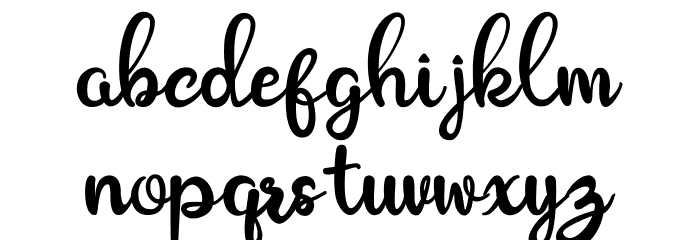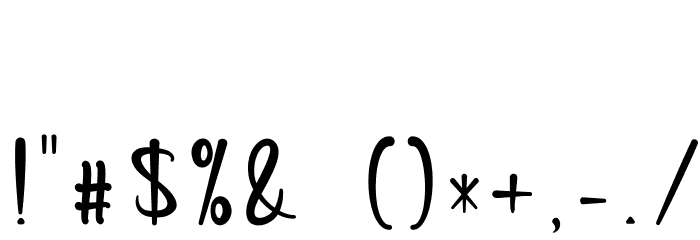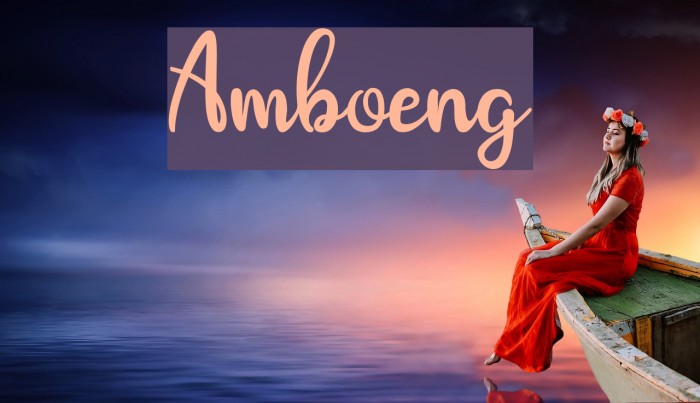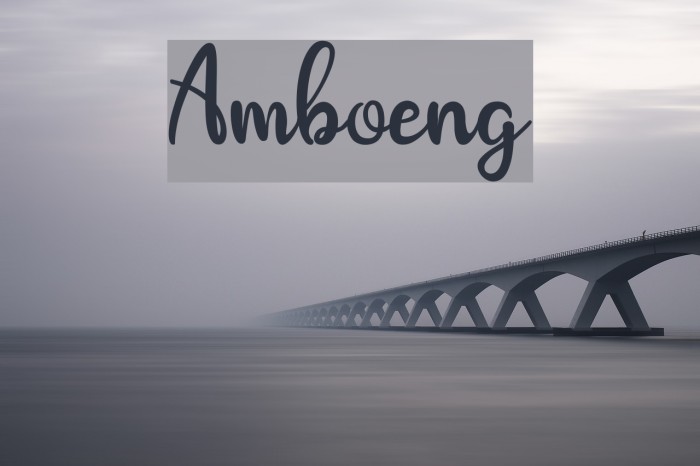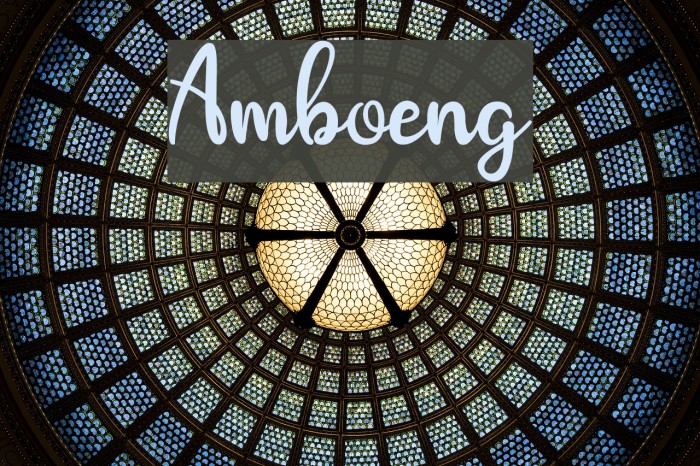
Amboeng Font
This font features a playful and whimsical script style with a handwritten appearance. The letters are characterized by their flowing, cursive forms and varying stroke thickness, giving it a dynamic and lively feel. The uppercase letters are bold and prominent, while the lowercase letters maintain a consistent flow with elegant loops and curves. The numerals and special characters complement the overall style, maintaining the same playful and artistic flair. This font exudes a sense of creativity and personal touch, making it ideal for projects that require a friendly and approachable aesthetic.
A playful and whimsical script font with a handwritten style.
- Proposed Projects: Ideal for greeting cards, invitations, personal branding, and creative projects that require a friendly and artistic touch.